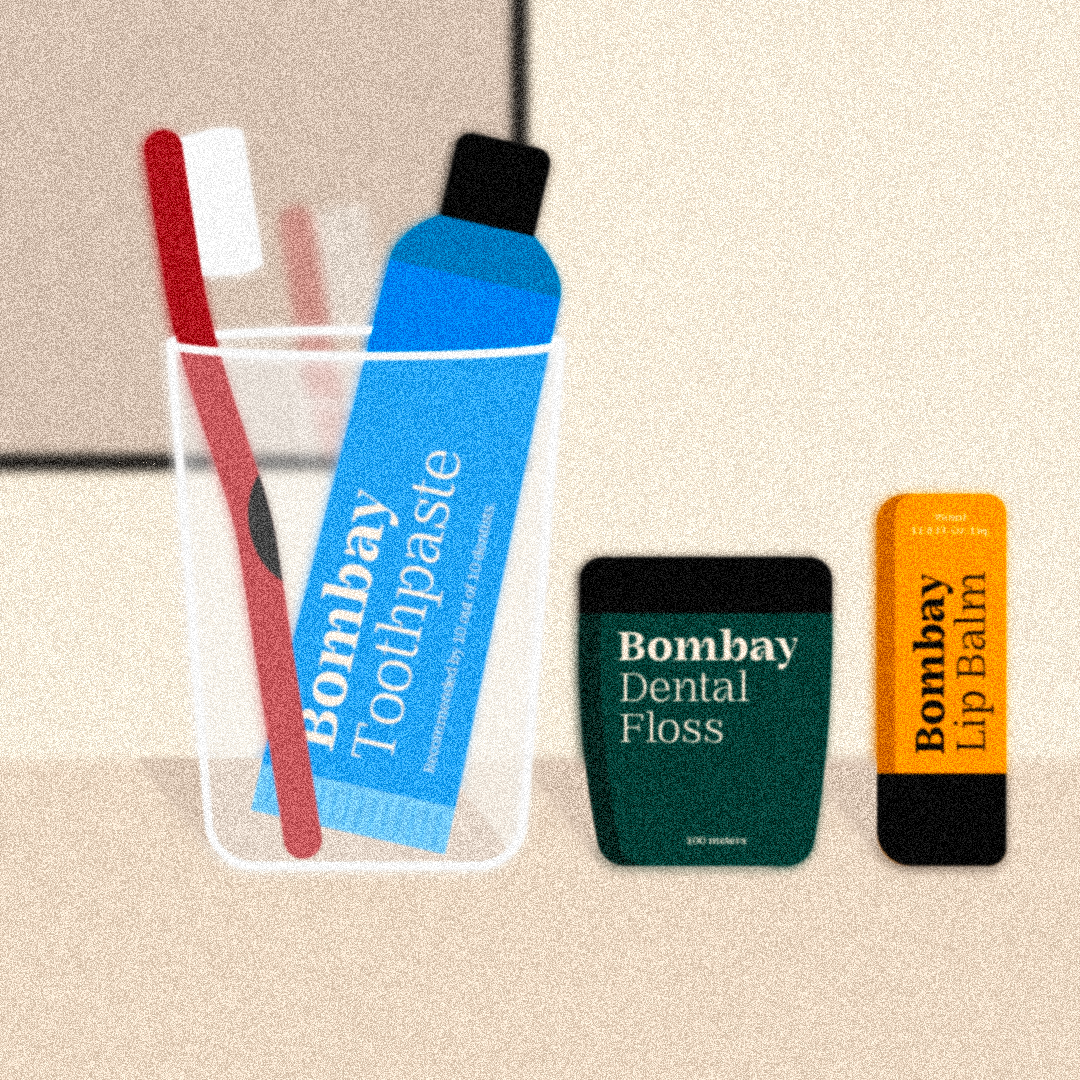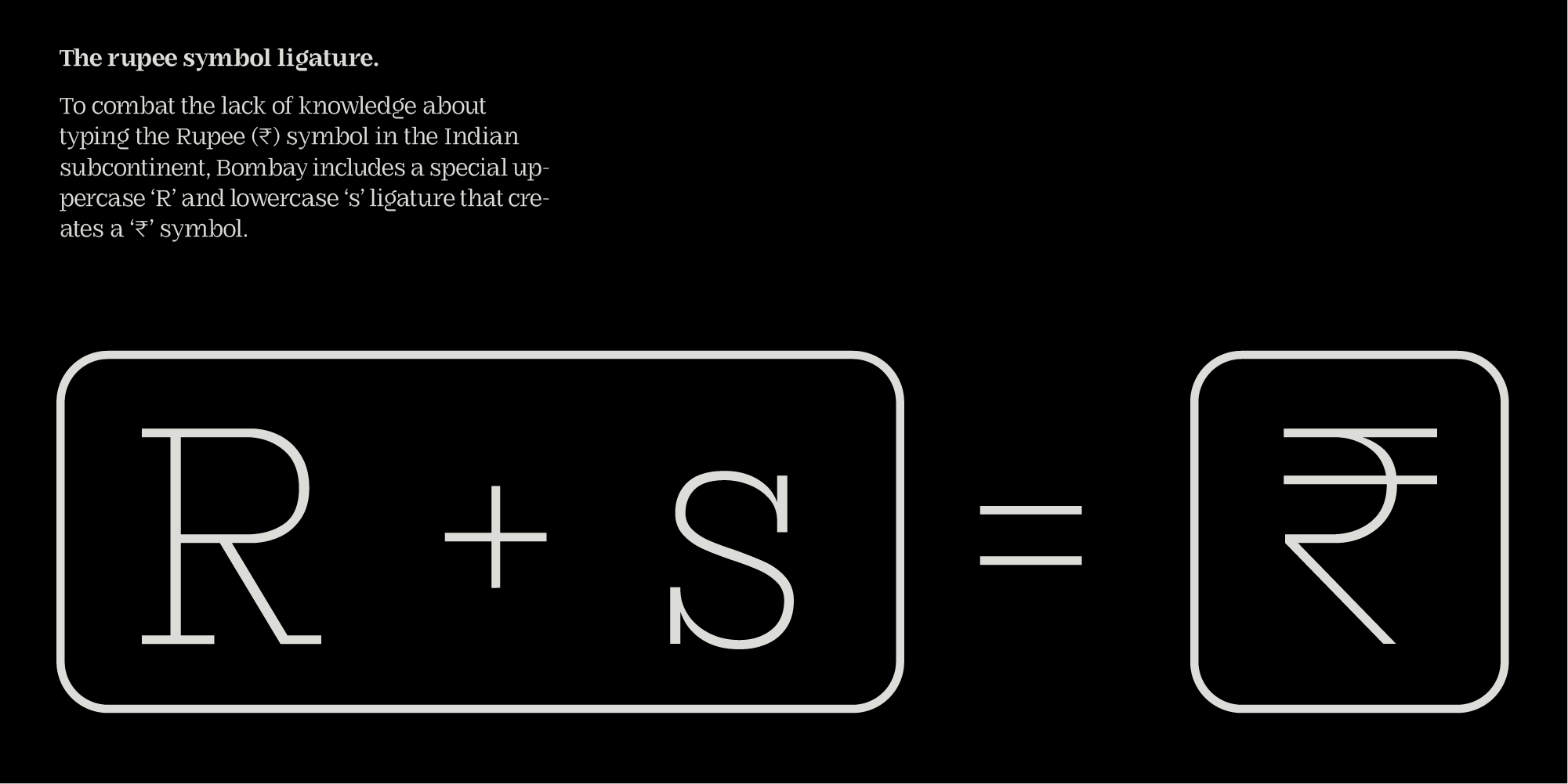
ManVs Bombay is a versatile serif typeface comprising of 10 styles, including 5 different weights. The typeface boasts variable 'connection' heights in the letters a, b, d, h, m, n, p, q, r and u, giving the design a distinct personality.
The inspiration for this typeface was drawn from the rich history of colonial Bombay, a city that is deeply rooted in culture and tradition. As a native of Bombay, I drew from my personal experiences and surroundings, such as the stunning architecture of landmarks like Chhatrapati Shivaji Maharaj Terminus, the Municipality building, and the Asiatic Library. Additionally, the varied cuisines like Parsi and Marathi, and the names of streets, also provided ample inspiration for this project.